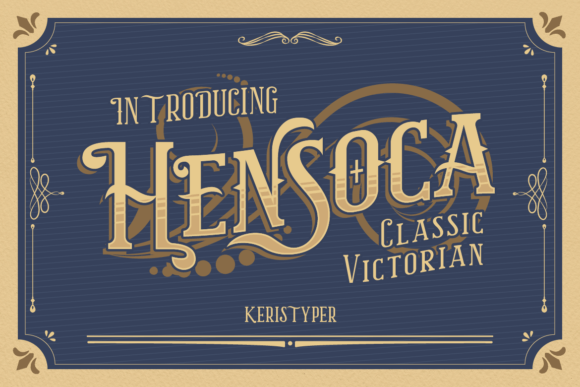
Journey back in time to an era of sophistication and charm with Hensoca, the captivating serif font that embodies the elegance of vintage Victorian signage and letterhead. Inspired by the timeless beauty of a bygone era, Hensoca's intricate details and graceful curves evoke a sense of nostalgia and intrigue. This remarkable font is meticulously crafted to transport your designs to a world of timeless allure, leaving an indelible mark on your audience.
Immerse yourself in the rich heritage and intricate artistry of Hensoca, a font that speaks volumes with its refined aesthetic. Each character is meticulously designed to reflect the elegance of Victorian typography, with delicate serifs and sweeping terminals that dance across the page. Hensoca's timeless appeal makes it the perfect choice for a wide range of design projects, from logos and branding to social media graphics and movie titles.
Unleash your creativity with Hensoca, the font that effortlessly elevates your designs to new heights of sophistication. Its versatility knows no bounds, seamlessly adapting to both short and long texts, adding a touch of timeless charm to every word. Whether you're crafting a captivating logo or designing an eye-catching book cover, Hensoca's timeless allure is sure to leave a lasting impression.
Step into the world of Hensoca, where classic elegance meets modern sensibilities. This remarkable font is the perfect complement to sans or serif fonts, creating a harmonious balance that captivates the eye. Its understated beauty adds a touch of refinement to any design, while its versatility ensures seamless integration with a wide range of projects. Hensoca is the key to unlocking a world of creative possibilities, transforming your designs into works of art that transcend time.
Don't miss the opportunity to experience the magic of Hensoca, the font that brings a touch of Victorian charm to the digital age. Its timeless beauty and versatility make it an essential tool for any designer seeking to create truly unforgettable designs. Embrace the elegance of Hensoca today and let your creativity flourish.